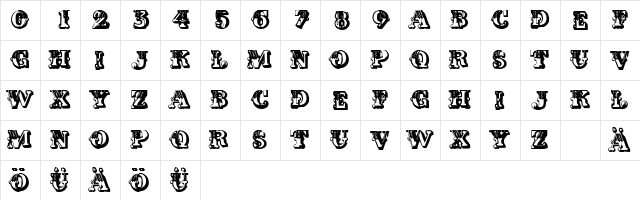
Melancholie4 Regular
Design Context for Melancholie4 Typeface
Melancholie4 is a composed and adaptable typeface that performs quietly and consistently across a wide range of design contexts.